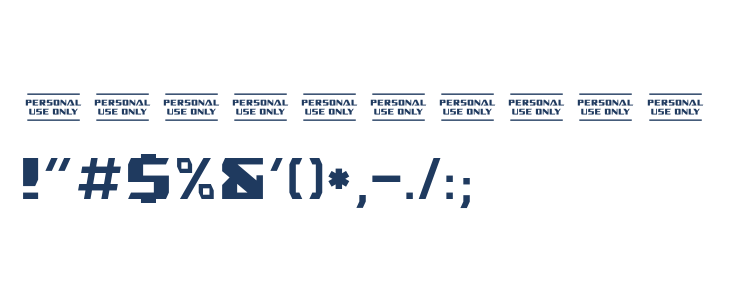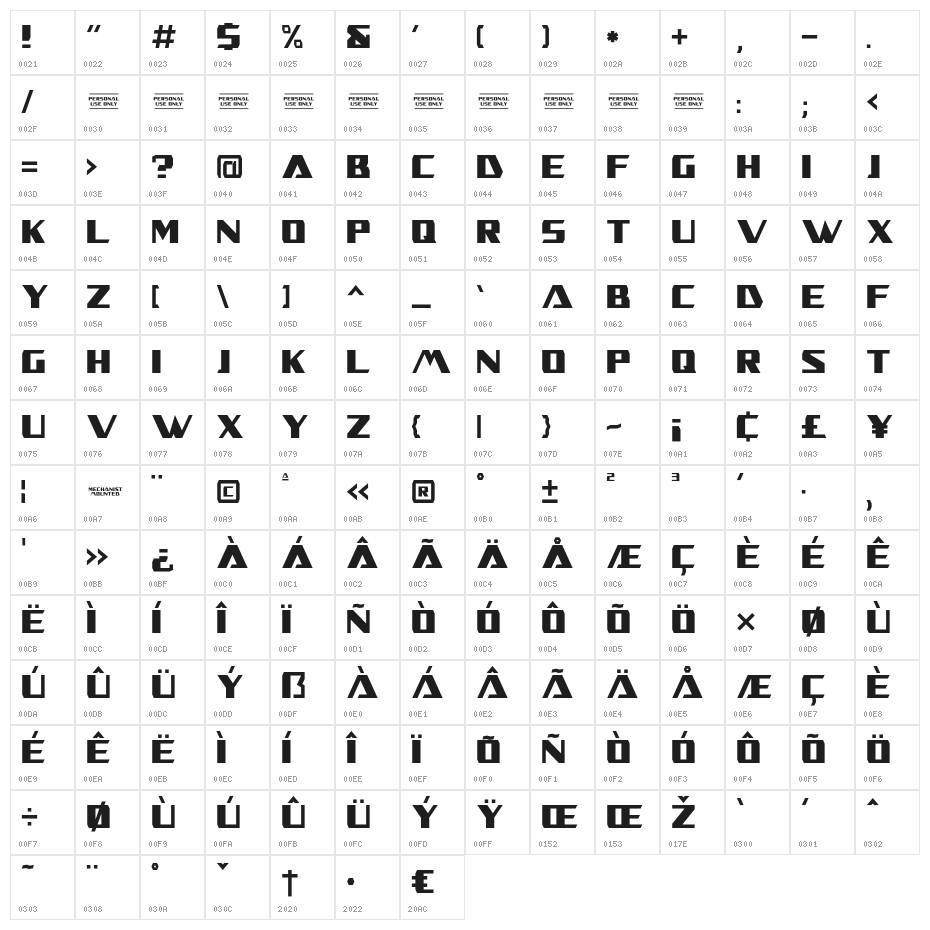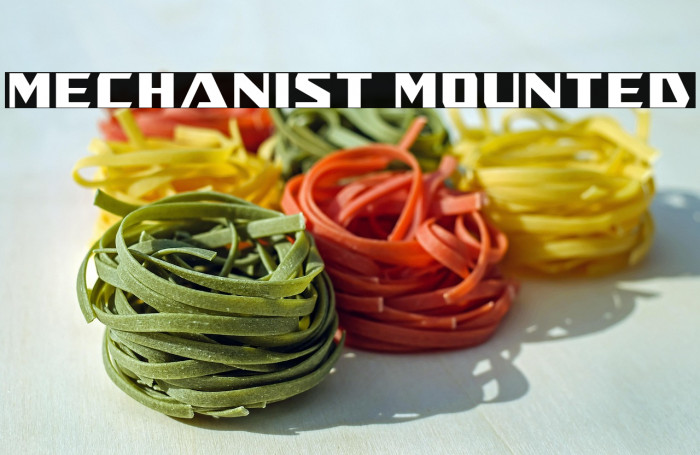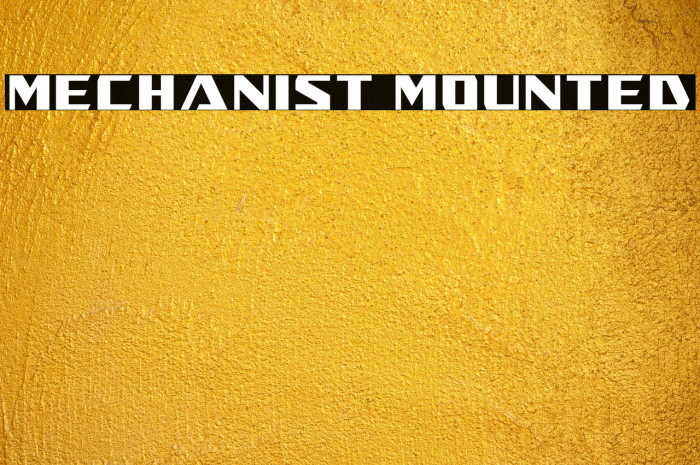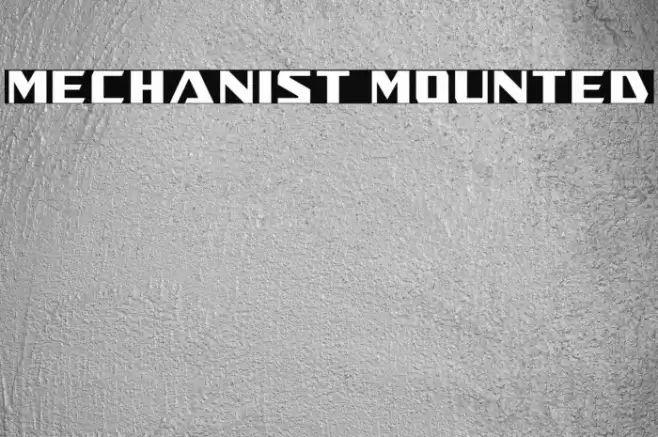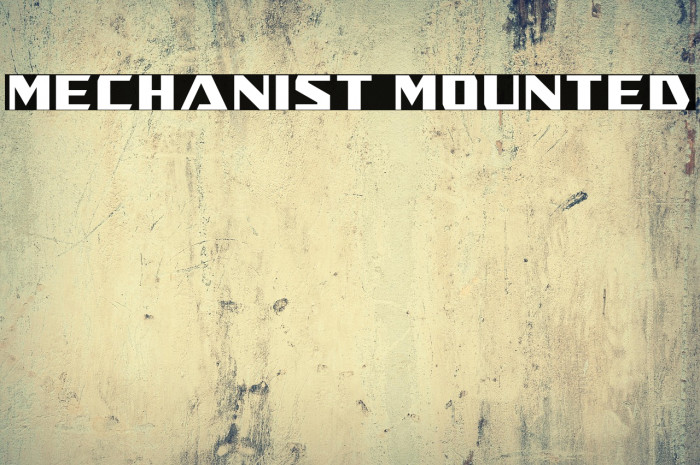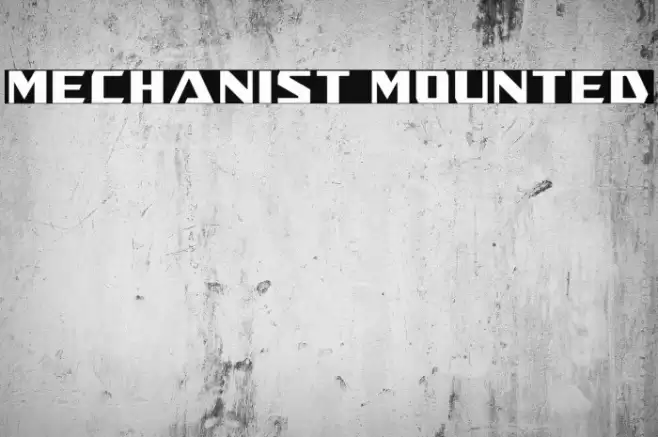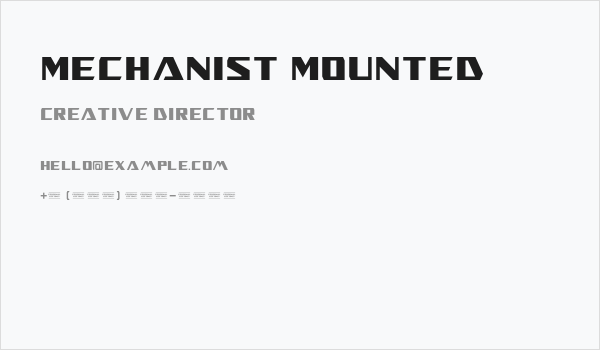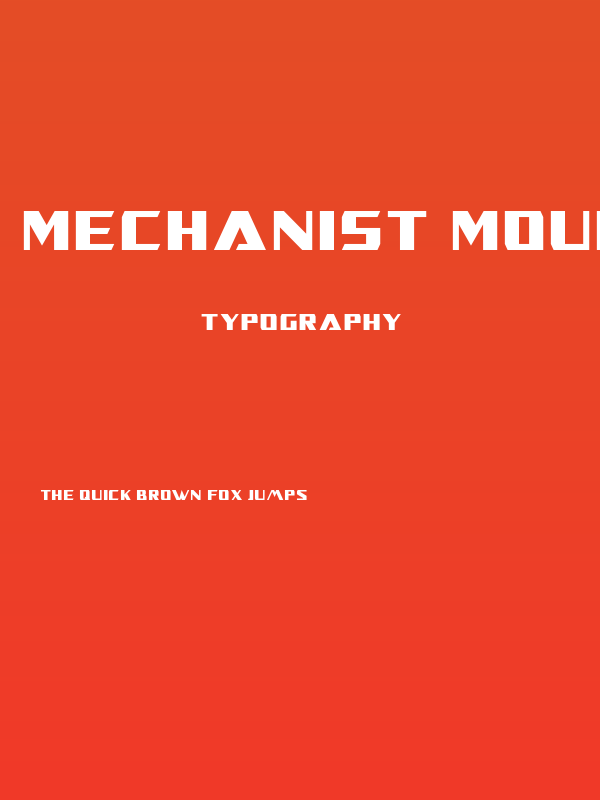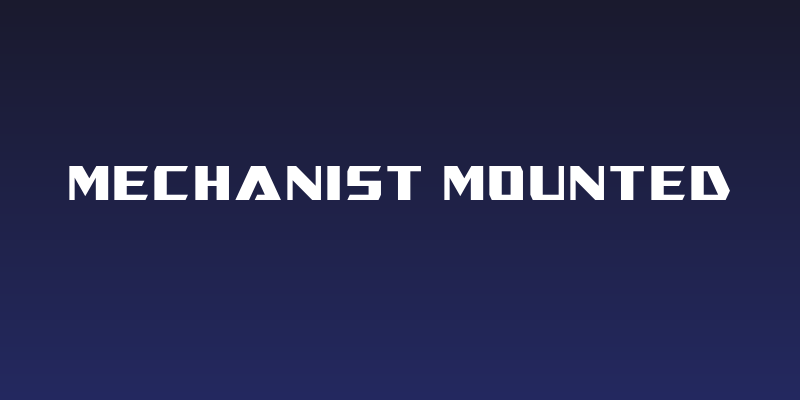
Mechanist Mounted Font
Mechanist Mounted Description
This font features a bold, geometric design with sharp angles and a futuristic aesthetic. The uppercase letters are distinct with a mechanical feel, characterized by straight lines and angular cuts that give it a strong, industrial look. The lowercase letters maintain the same angular style, ensuring consistency throughout the typeface. The numbers and special characters are designed to match the boldness and geometric nature of the alphabet, making them highly legible and visually striking. This font is ideal for projects that require a modern, tech-inspired appearance.